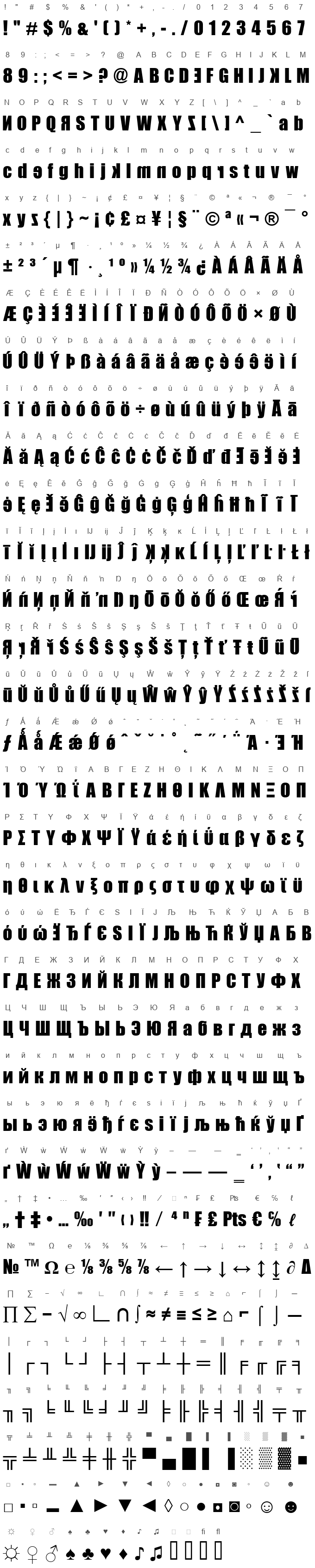
The font IRR3V3RSIBL3, designed by Clément Nicolle, is a distinctive typeface that embodies a sense of creative rebellion and innovation. Its name itself, with the intentional use of numbers to replace certain letters, hints at its unconventional and avant-garde nature. This stylistic choice reflects the essence of the font, which seems to challenge traditional norms and embrace a futuristic, almost cybernetic aesthetic.
IRR3V3RSIBL3 isn't just a font; it's a statement. Each character within the typeface is designed with a unique blend of sharp angles and geometric precision, giving it a stark, impactful presence on the page or screen. The use of straight lines and calculated curves lends the font a mechanical quality, as if each letter was meticulously engineered rather than simply drawn. This precision doesn't strip the font of its dynamism, however; on the contrary, it enhances the typeface's ability to stand out and command attention.
Despite its seemingly rigid structure, IRR3V3RSIBL3 exhibits a playful side through its ability to adapt and fit various design contexts, from the gritty and industrial to the sleek and futuristic. Its versatility is a testament to Clément Nicolle's skillful design, allowing the font to be both assertive and adaptable. Overall, IRR3V3RSIBL3 is a bold choice for designers looking to impart a memorable and unmistakable character to their works, blending the lines between typography, art, and statement.
IRR3V3RSIBL3